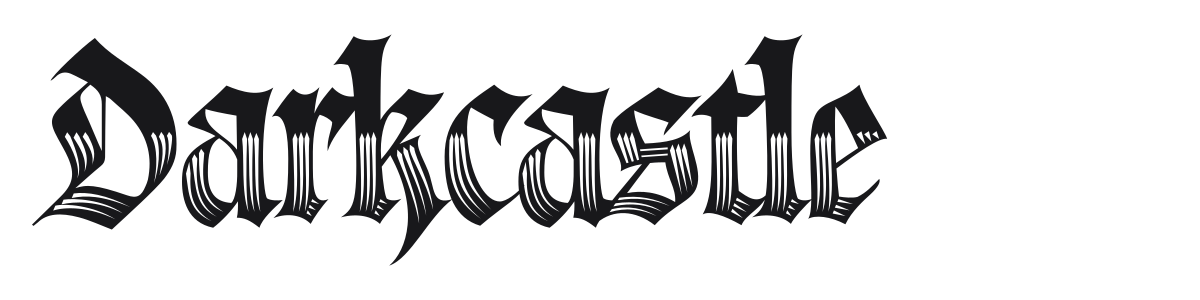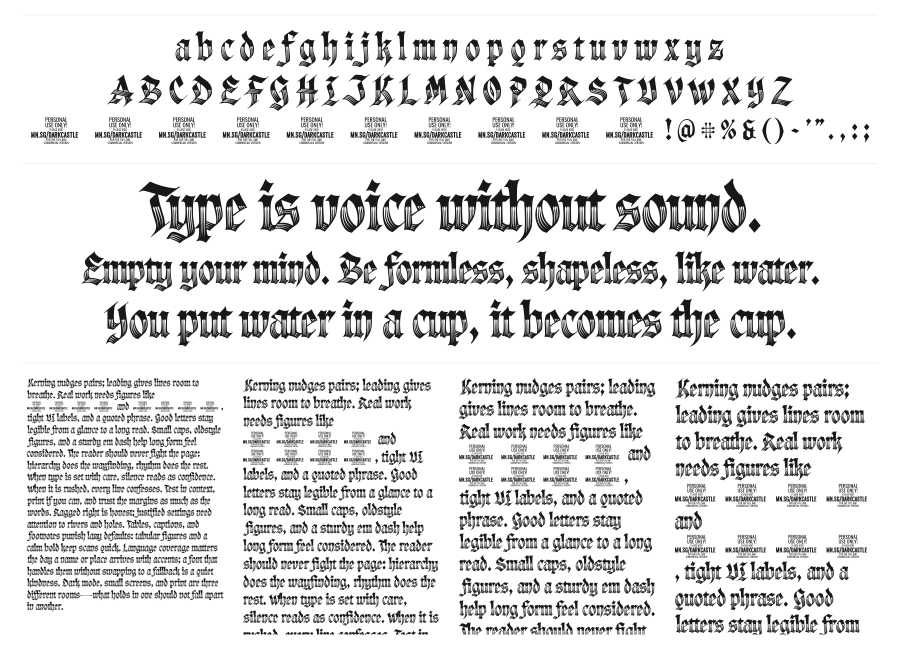
Darkcastle
Darkcastle is a bold blackletter font rooted in medieval Textura calligraphy, built for maximum visual impact. Its defining feature is a series of sharp parallel lines running through the main strokes, creating an illuminated, almost engraved quality that sets it apart from plainer gothic typefaces. Strong at large sizes for logotypes, album covers, horror branding, and anything that needs historical weight or a dark edge.